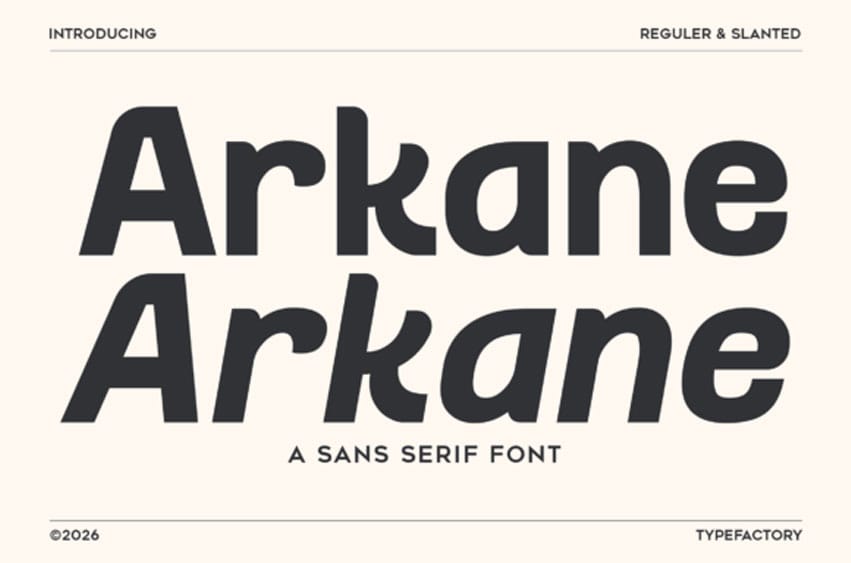
Arkane Font is a clean sans serif font duo featuring regular and slanted styles with bold geometric shapes, smooth curves, and a modern professional look.
Its versatile character makes it suitable for branding, logo design, packaging, editorial layouts, film titles, product labels, signage, posters, and minimalist visual identity projects.